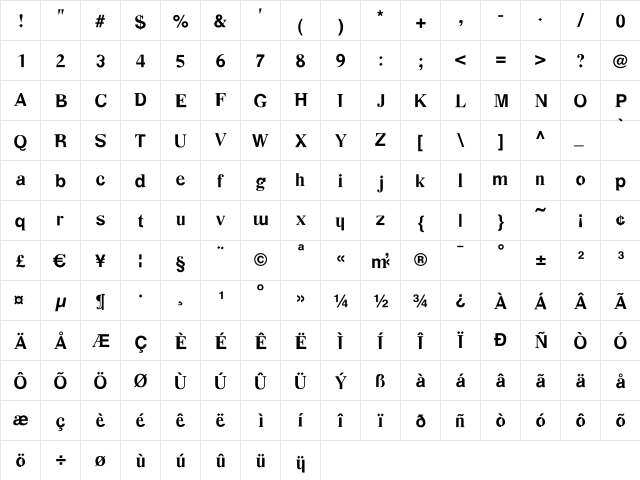
Desastra-Bold Regular
Design Context for Desastra-Bold Typeface
Desastra-Bold is a composed and adaptable typeface that performs quietly and consistently across a wide range of design contexts. The heavy weight commands attention and anchors typographic hierarchies.